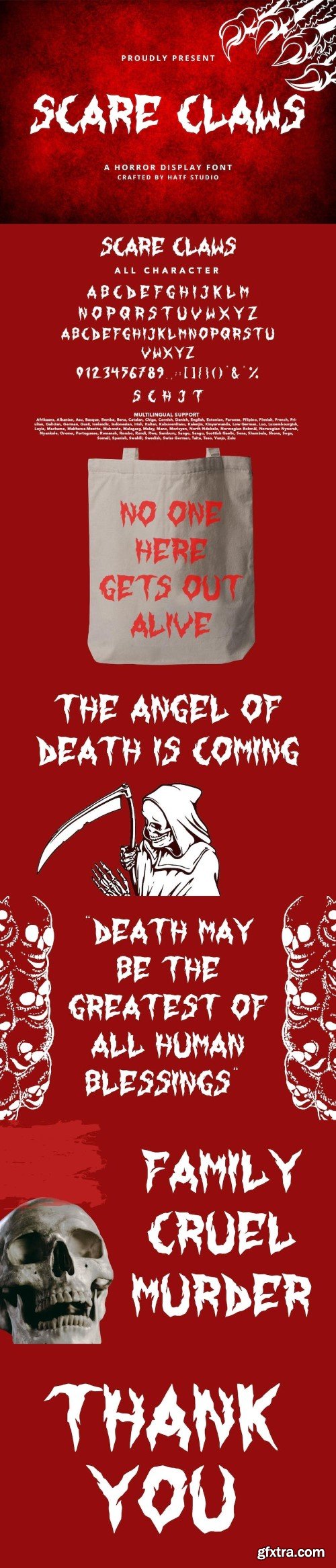
黑色字体鬼斧惊雷显示字体
Is a blackletter display font that is inspired by gothic and horror style because it's shape is very unique and is perfect for any project that you will use with this theme.